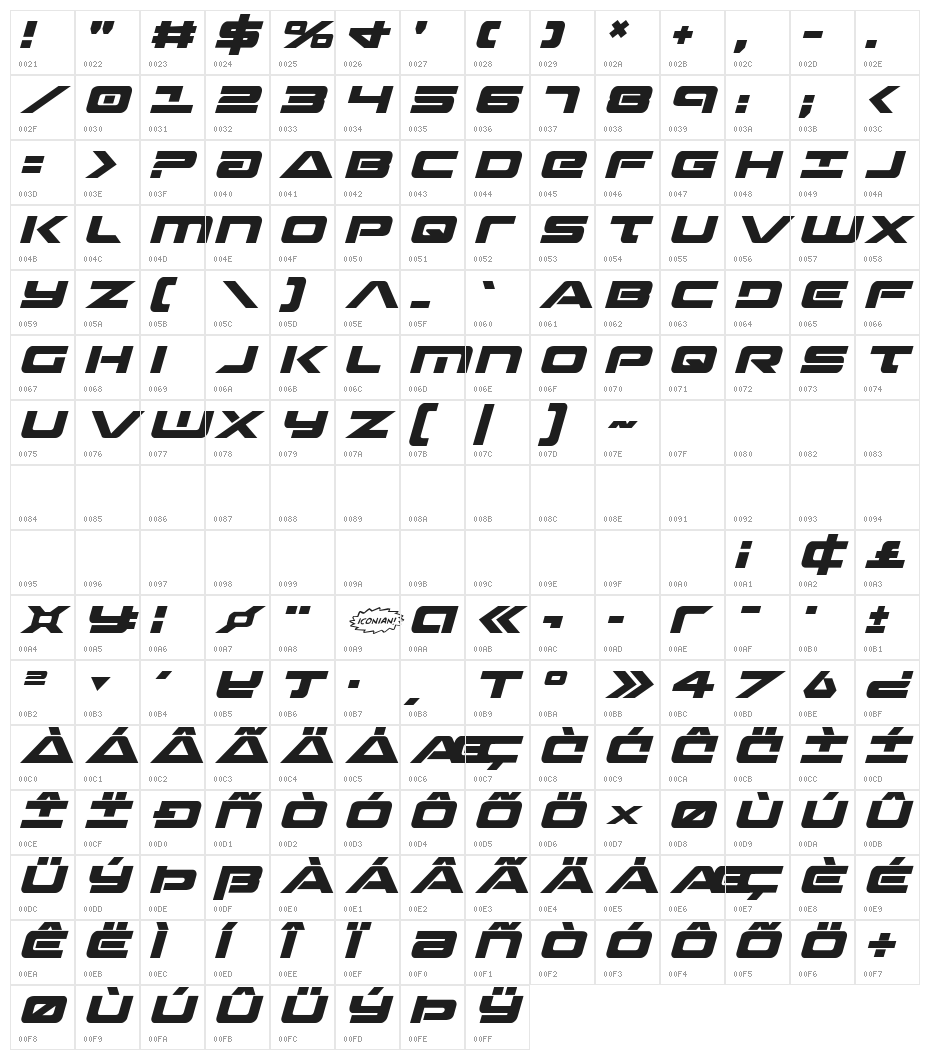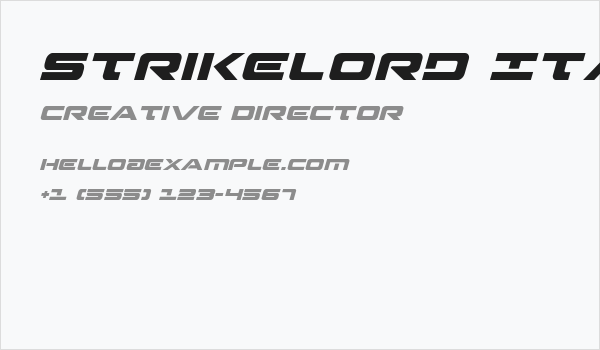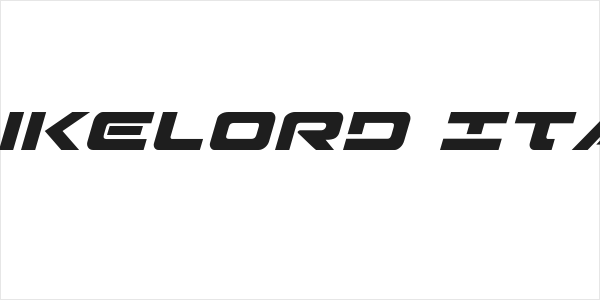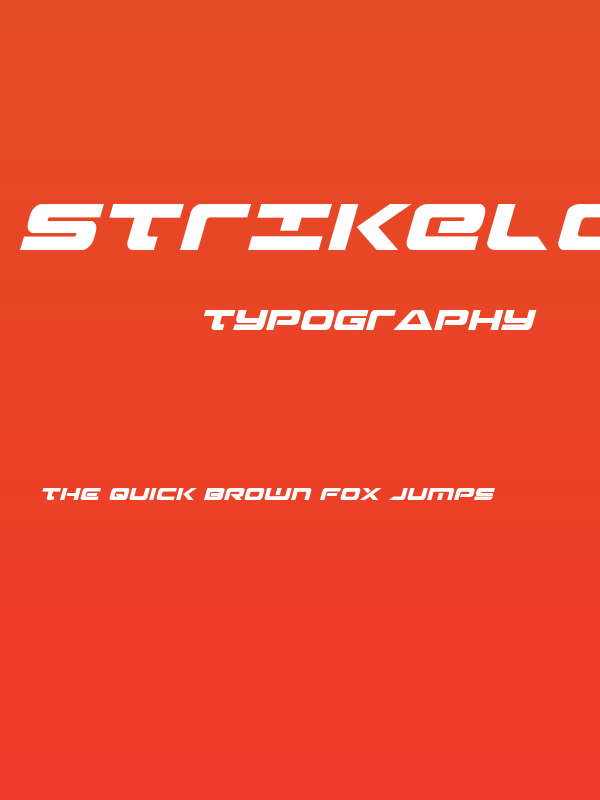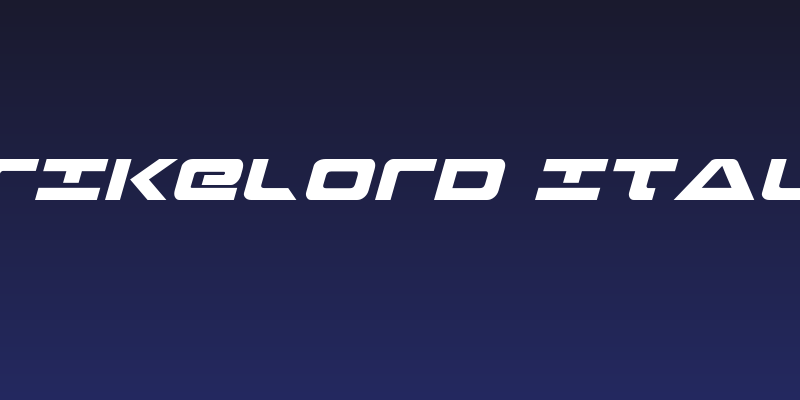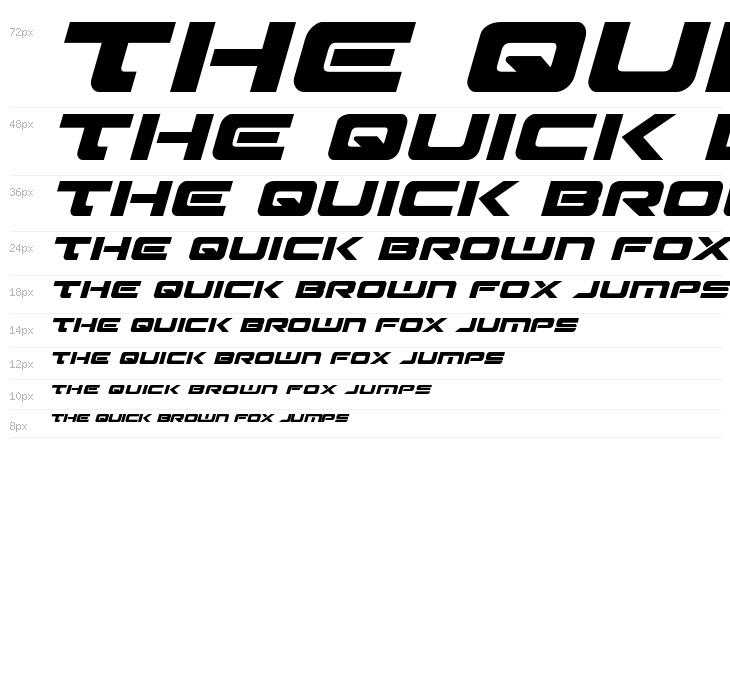
Strikelord Italic Font
Strikelord Italic Description
This font features a bold, italicized style with a futuristic and dynamic appearance. The characters are designed with sharp angles and a forward-leaning stance, giving a sense of motion and speed. The uppercase and lowercase letters maintain a consistent style, with a geometric and slightly condensed form. The numbers and special characters follow the same design principles, ensuring uniformity across all glyphs. This font is ideal for projects that require a modern and edgy look, such as technology branding, sports team logos, or video game titles.
| Proposed Projects | Ideal for technology branding, sports team logos, video game titles, and dynamic posters. |